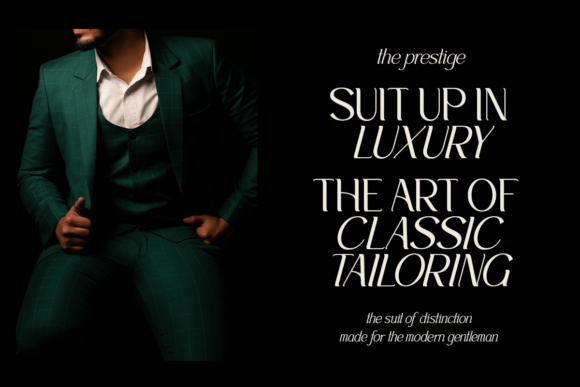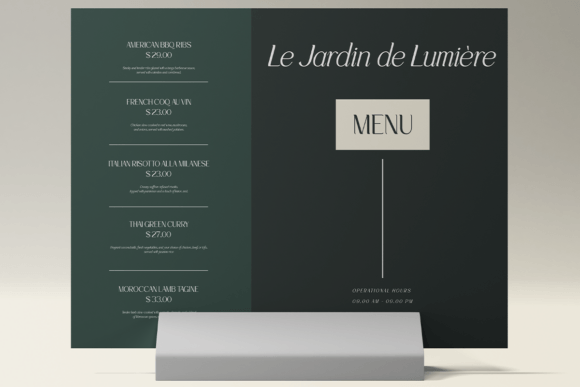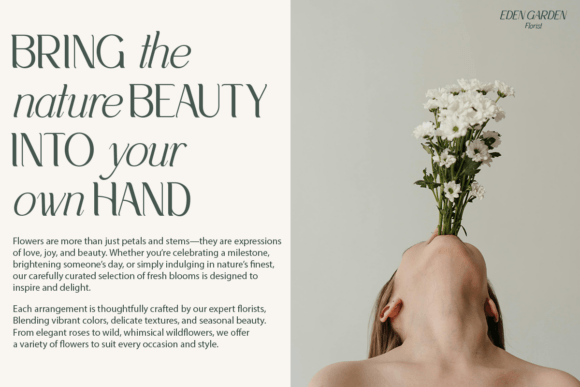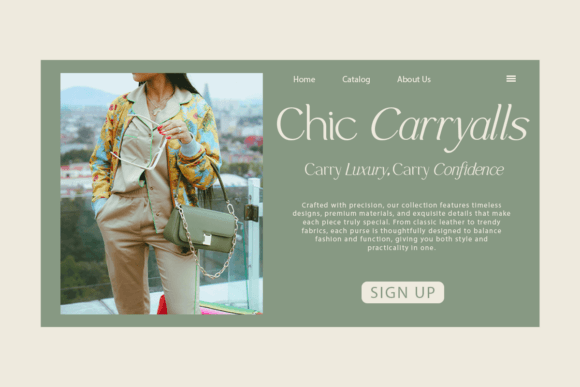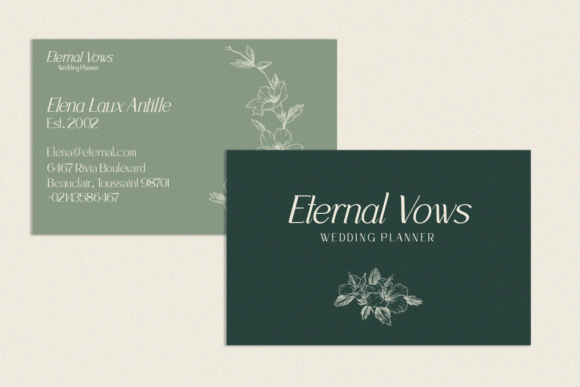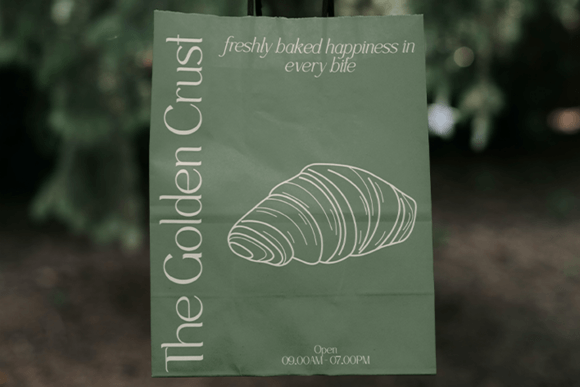
Introduction to Quadrant Font Font
Fonts play a crucial role in design, and the Quadrant Font font is a typeface that brings both character and versatility to any project. Whether you’re working on a branding project, a website, or a print design, the Quadrant Font font offers a unique style that can elevate your work.
Quadrant is a clean sans-serif font featuring beautiful regular and italic styles.
Designed for harmony, the bold and voluptuous uppercase of the regular style contrasts strikingly with the sleek and elegant lowercase of its italic counterpart It’s perfectly suited for creating simple, clean, lifestyle designs such as logos, titles, magazines, and more.
The Quadrant Font font is more than just a typeface – it’s a design tool that helps you communicate your message with style and clarity. Its unique character set and versatile design make it suitable for a wide range of applications, from elegant invitations to bold headlines.
With its carefully crafted letterforms and balanced proportions, the Quadrant Font font ensures readability and visual appeal across all mediums.
The Quadrant Font font stands out with its unique design, exceptional readability, and versatility across various design applications.